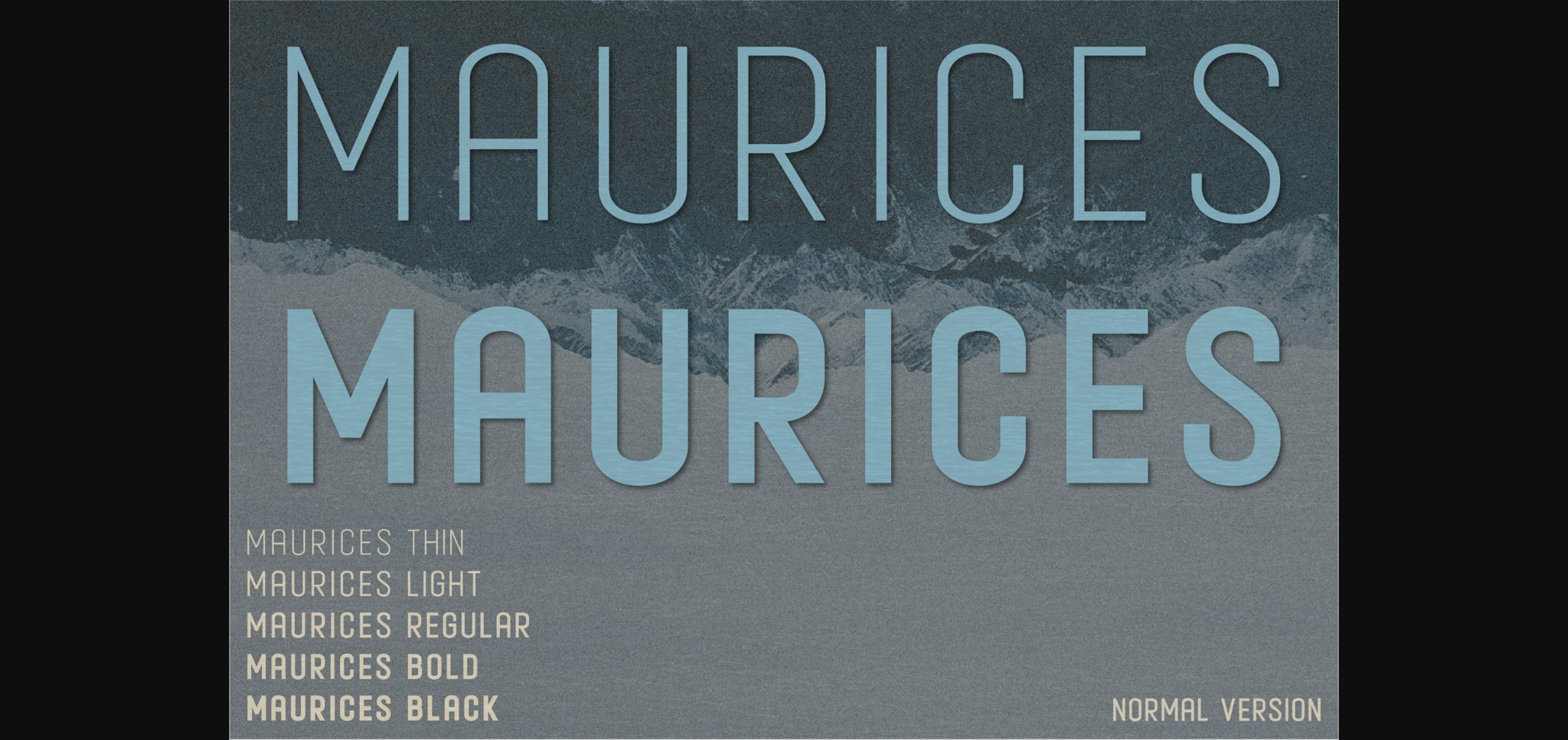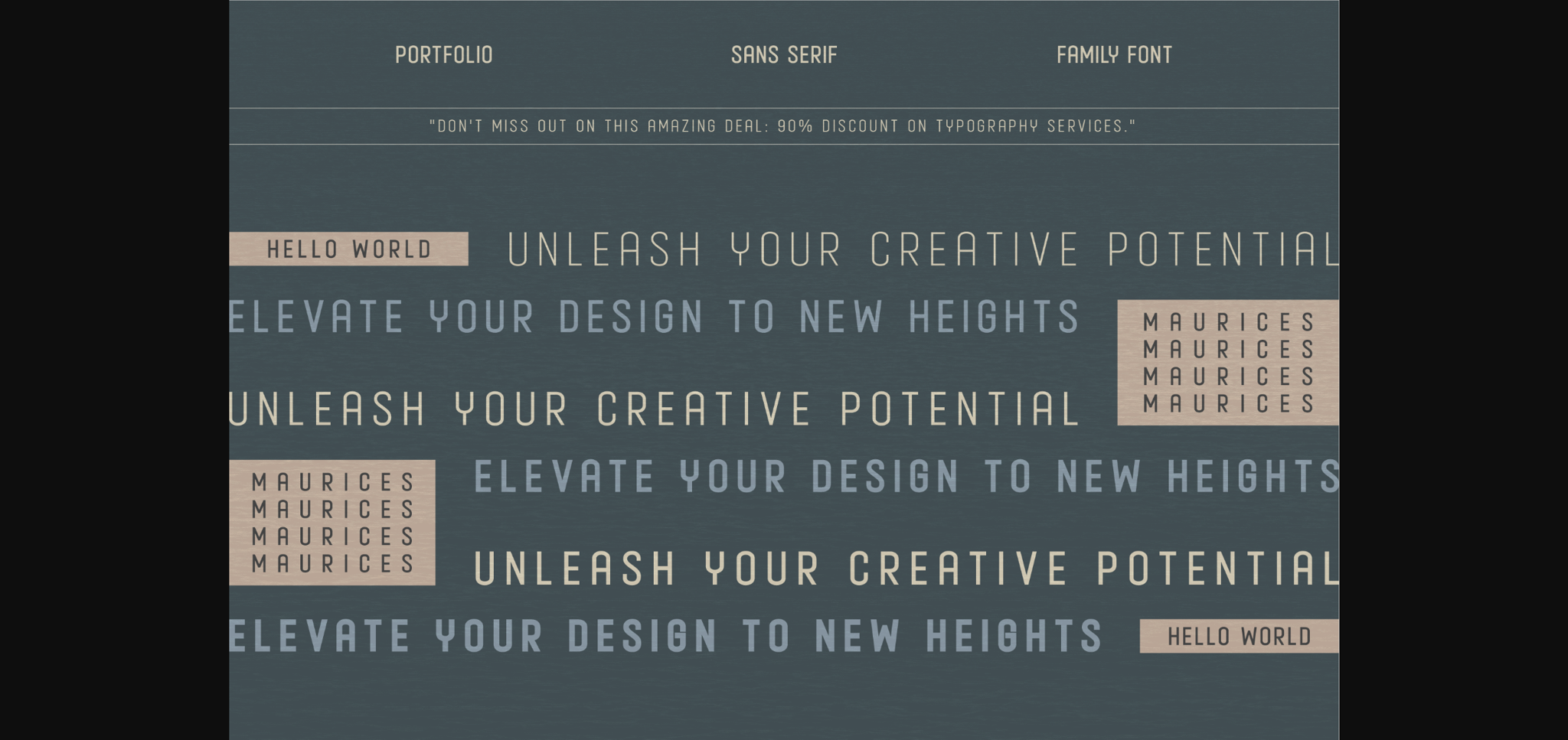
About Maurices Font
Presenting Maurices, an elegant font family that encapsulates simplicity and grandeur. This elite sans-serif suite, comprising of five unique weights, perfectly fuses contemporary aesthetics with a touch of opulence. Meticulously designed with exceptional precision, the Maurices elevates all creative endeavors, be it high-fashion magazines, impactful logos, or striking film posters. Immerse in the sublime equilibrium of refinement and minimalism, lending your designs a timeless allure. Unlock the enchanting power of the Maurices font family and let your creativity blossom.